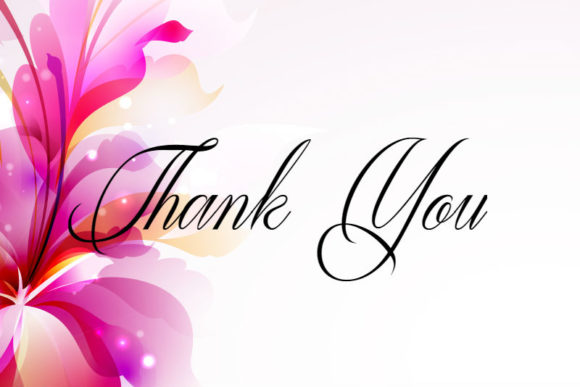
HomeScript FontsMaathuis Font Script Fonts Maathuis Font FacebookXPinterestWhatsApp Maathuis Font Poster 2 About Maathuis Font Sweet and elegant like a fresh orchid, Maathuis is a sharp, yet friendly handwritten font with a classy feel. DOWNLOAD ON CREATIVE FABRICAThis font is sold and delivered by Creative Fabrica. Font Canyon may earn a commission if you buy through this link. People also explored Vintage Font Rashida Font Rattem Hullax Font Lovestory Font Mens Navy Bella Canvas 3001 Shirt Mockup Thom Ritz Family Font Moxie Twist Font Bellanatture Font Bold Font 340 0 TagsMaathuis Font Previous articleLibby FontNext articleTiamoran Font LEAVE A REPLY Cancel reply Comment: Please enter your comment! Name:* Please enter your name here Email:* You have entered an incorrect email address! Please enter your email address here Website: Save my name, email, and website in this browser for the next time I comment. Personal Use Free Bettari Personal Use Free Read more about this font Baby Cute Personal Use Free Read more about this font No Virus Personal Use Free Read more about this font Rolling Door Personal Use Free Read more about this font BLOG Exploring Font Trends Shaping Communication in the Digital Era Fonts, like all design elements, are subject to trends. They play a crucial role in communicating a brand's personality,... Fonts That Capture the Spirit of New York City Modern Sans-Serif Fonts That Brands Love in 2025 Where to Buy American Fonts Online in 2024